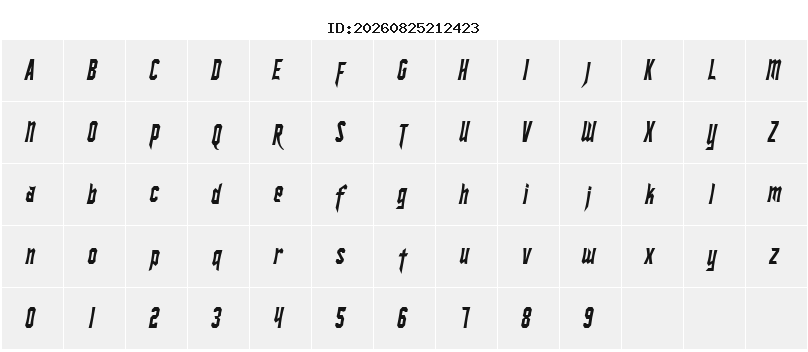
• Font Name: SF Ironsides Condensed
• Font ID: SF Ironsides Condensed Italic
• Full Font Name: SF Ironsides Condensed Italic
• PostScript Name: SFIronsidesCondensedItalic
About SF Ironsides Condensed.ttf
SF Ironsides Condensed.ttf is a modern, elegant sans-serif font designed for ultimate readability and visual harmony. Perfect for branding, headlines, web design, and print materials.